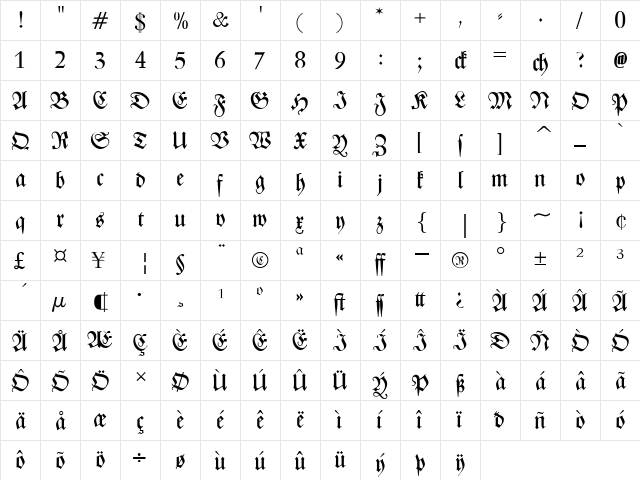
Zentenar Fraktur Regular
| Designer | Friedrich Hermann Ernst Schneidler |
Design Context for Zentenar Fraktur Typeface
Zentenar Fraktur channels the dramatic heritage of Fraktur and Gothic scripts, bringing a sense of historical gravitas to any design.
Well-suited to band logos, craft beer branding, tattoo lettering, and heritage-themed identities.
Font Pairing: Pair with a clean neutral sans-serif for body copy to let Zentenar Fraktur's character lead without overwhelming the composition.
Pro Tip: Use Zentenar Fraktur sparingly at large sizes. Even a single word set in blackletter can define the visual register of an entire design.